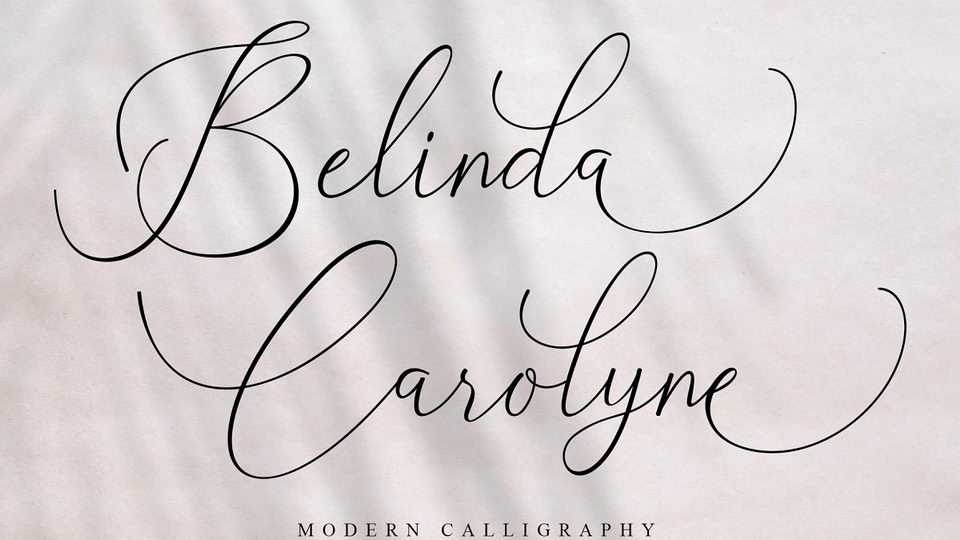
Download Belinda Carolyne font, a classic calligraphy script. Belinda Carolyne is available some modern swirl that can make your design look elegant, sweet and perfect.
Designer: MJB Letters